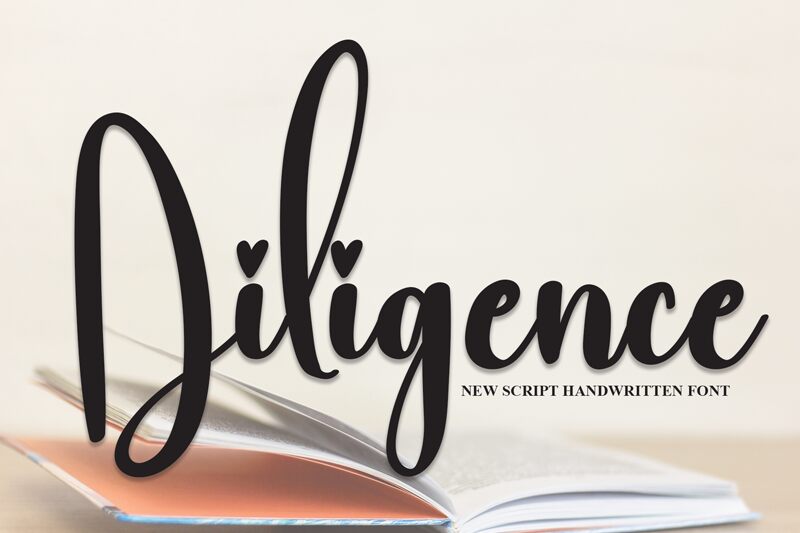
Diligence
Looking for a cute calligraphy font to enhance your design? Look no further than Diligence, designed by Scratchones. This font exudes brilliance and maximizes productivity, making the design process a breeze. Introducing Rallocate, a stunning script font that resembles a signature with its contrasting strokes. Each letter is impeccably neat and carries an air of elegance. Whether in headers or smaller text, this font shines.
With its fascinating features, Rallocate is perfect for posters, logos, book covers, branding, headings, printed products, merchandise, quotes, and social media campaigns. Discover the endless possibilities of this font through the preview!
The latest style letters are perfect for wall displays, wedding invitations, social media post logos, advertisements, product packaging, product designs, labels, photography, watermarks, invitations, stationery, and any project that requires taste handwriting.